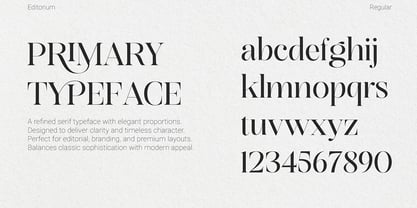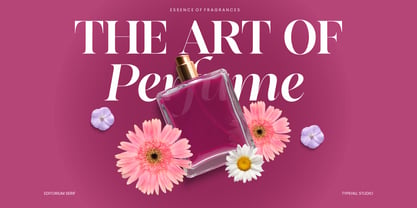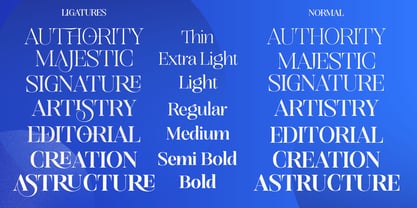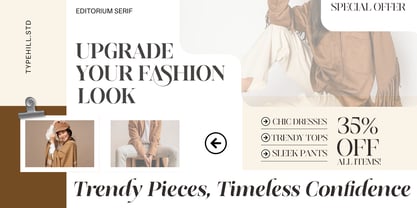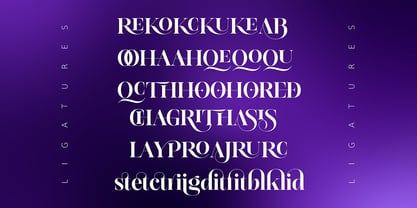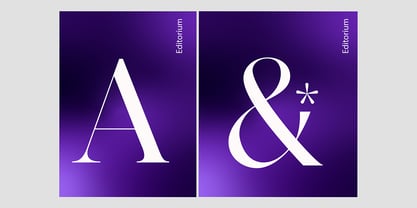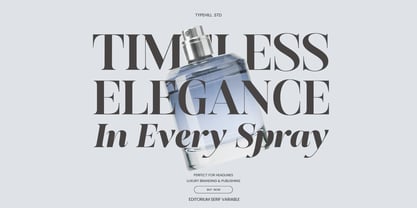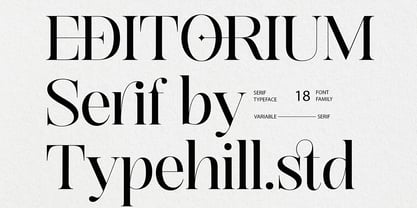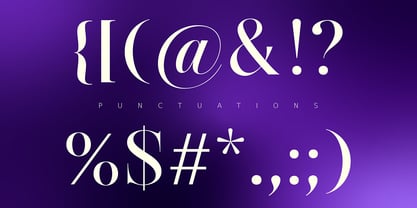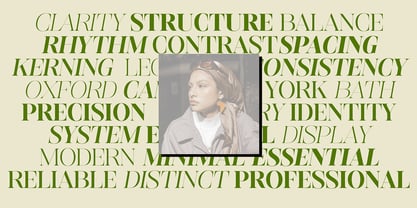
Editorium Serif
by Typehill Studio
The Editorium Serif Font Family was designed by Teuku Fahruddin and published by Typehill Studio. Editorium Serif contains 20 styles and family package options. More about this family
Editorium Serif is a modern variable serif typeface designed for editorial excellence and refined typography. It combines classic serif proportions with contemporary detailing, delivering a confident, elegant voice suited for both print and digital environments. With 18 styles in total—9 upright and 9 italic—Editorium Serif offers a wide expressive range, from delicate text settings to bold, commanding headlines. Its italics are carefully crafted, not mechanically slanted, providing natural rhythm and strong emphasis for editorial layouts. Editorium Serif excels in editorial design, publishing, branding, magazines, books, and sophisticated visual identities. Balanced letterforms, controlled contrast, and precise spacing ensure excellent readability while maintaining a distinctive, authoritative character. Designed to be versatile yet timeless, Editorium Serif empowers designers to build hierarchy, clarity, and personality across a wide range of typographic applications.
Designers: Teuku Fahruddin
Foundry: Typehill Studio